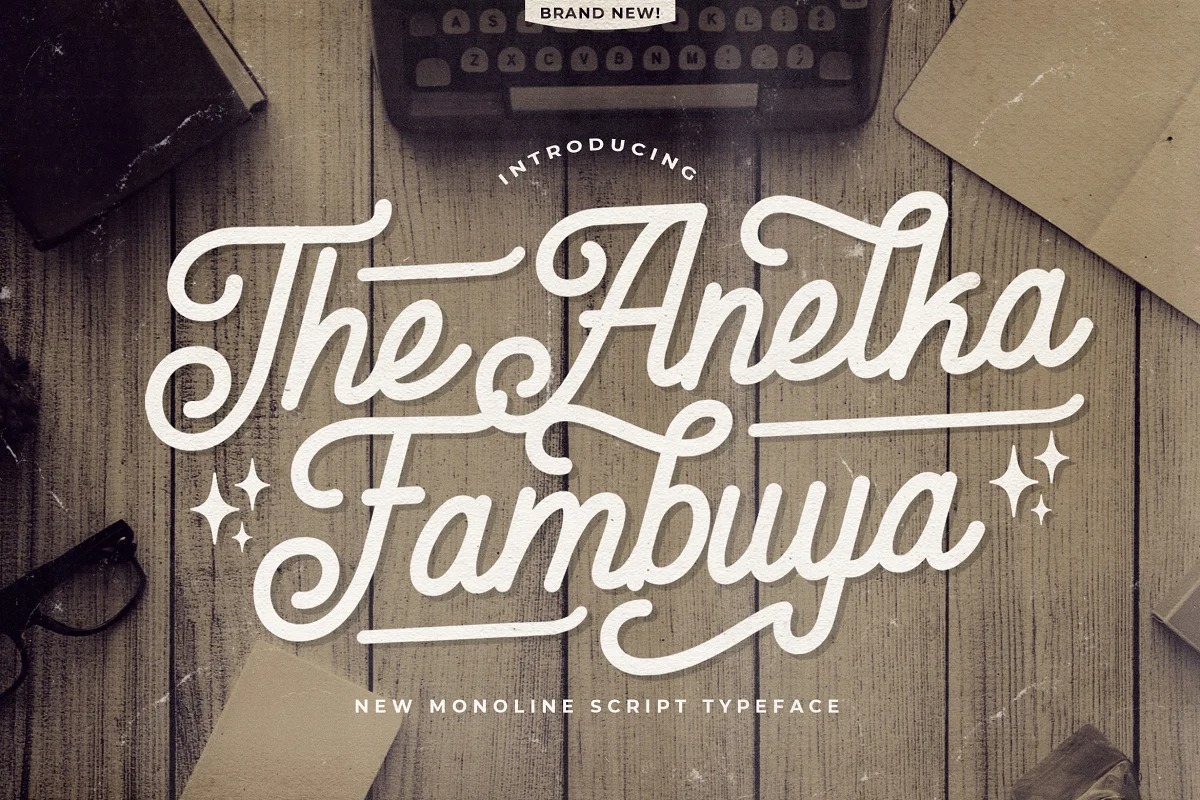
Anelka Fambuya Script Font
This is a stunning monoline pen handwriting font from designer StringLabs. It has unique a flawless looks that are modern, elegant, luxurious, professional and sophisticated style. This font is perfect for fashion brand, apparel, shoes company, wedding invitation, business card, logo brand, clothing, and also business brand name like barber shop or taylor.